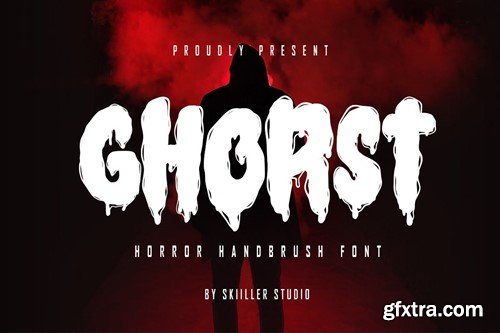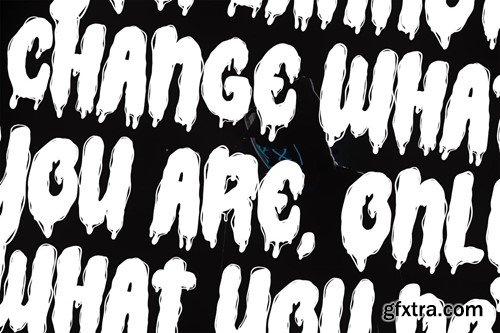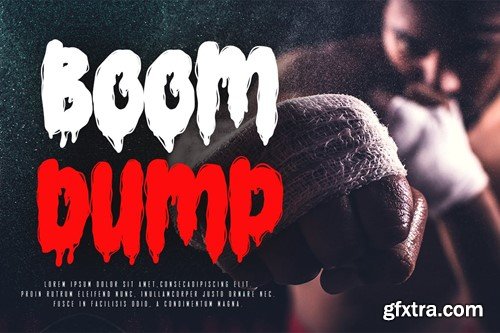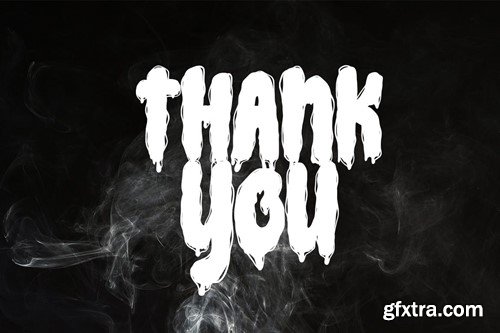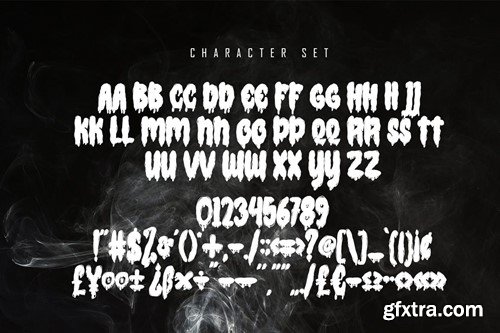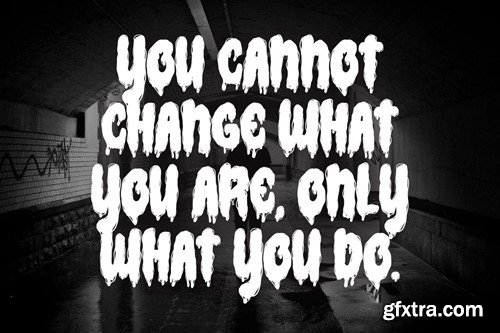
Ghorst - Horror Handbrush Font
Ghorst was inspired by the typography of natural brushes. Written in quick motion using a brush pen, it's a bit dry and looks realistic. It is suitable for commercial needs or magazine fashion design, offer logos, product packaging, headlines, posters, merchandise, social media & other greeting cards. What's include: